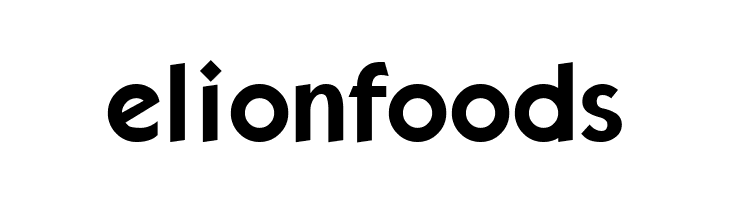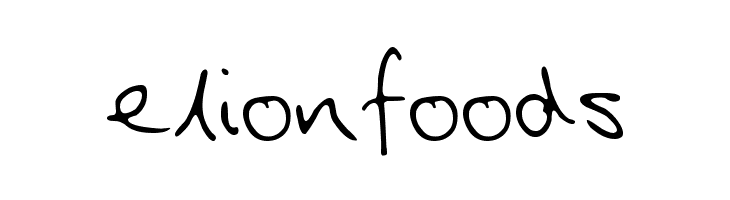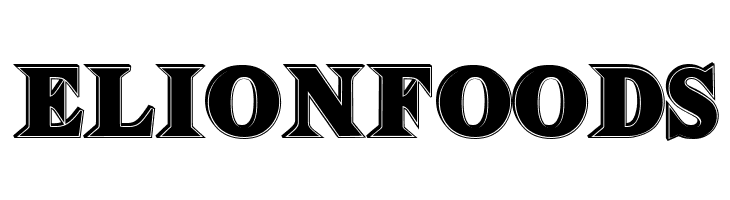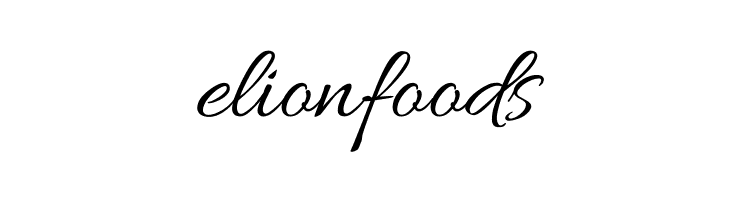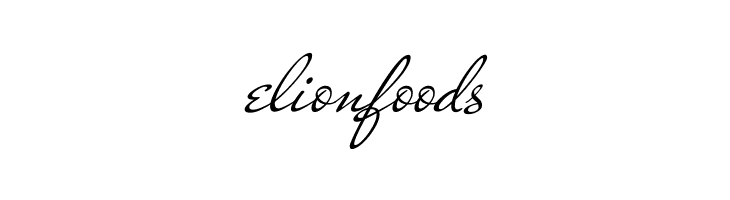
A bold, geometric font with a modern and commanding presence.
A casual, friendly handwritten font with smooth, flowing strokes.
A bold, classic serif font with strong strokes and sharp serifs.
A bold, impactful font with thick strokes and a modern, commanding presence.
A bold, modern sans-serif font with clean lines and uniform strokes.
An elegant script font with fluid, cursive strokes and sophisticated design.
An elegant script font with flowing, interconnected letters and a refined appearance.
An elegant, high-contrast script font with flowing, decorative curves.
An elegant script font with intricate, flowing lines and ornate uppercase letters.
An elegant script font with ornate uppercase letters and smooth, flowing lowercase characters.